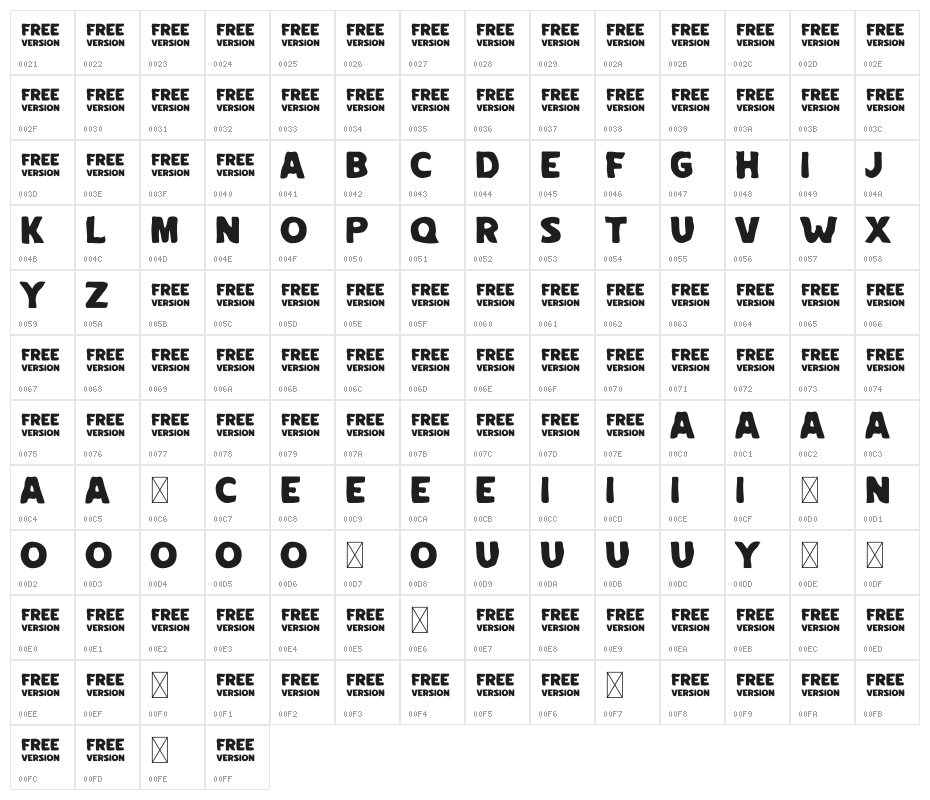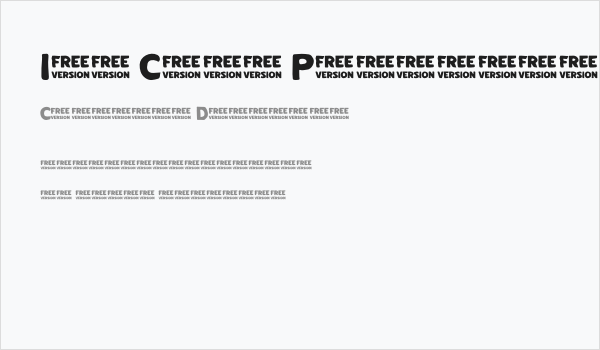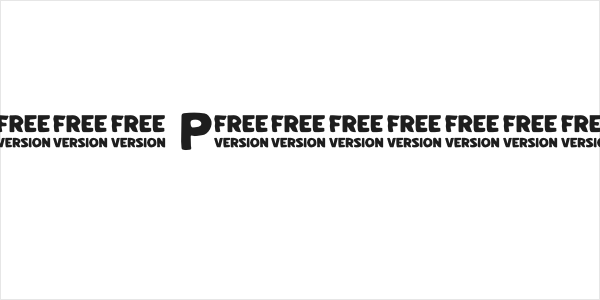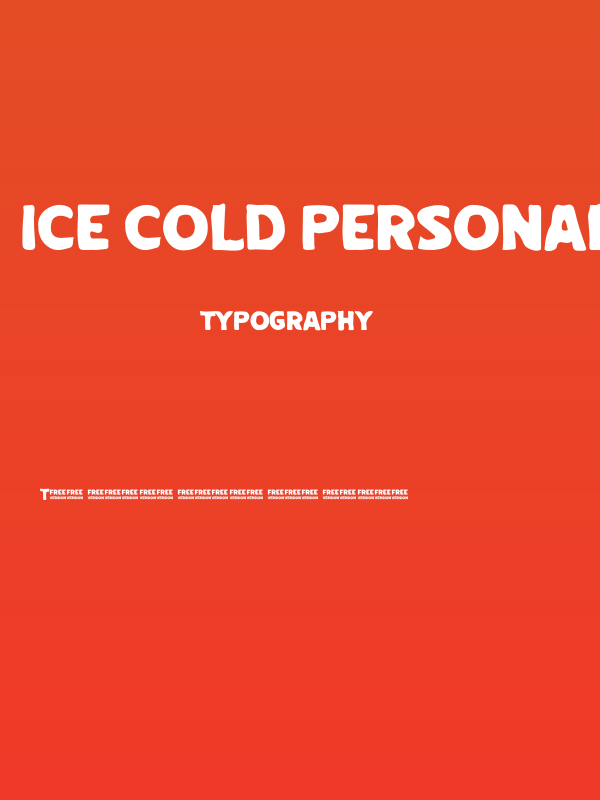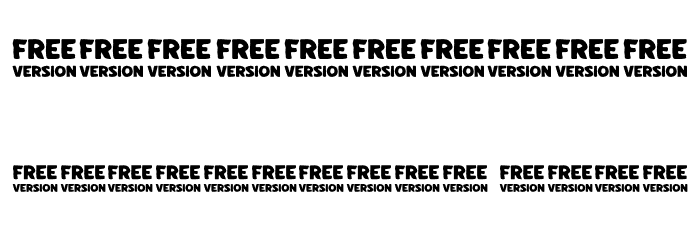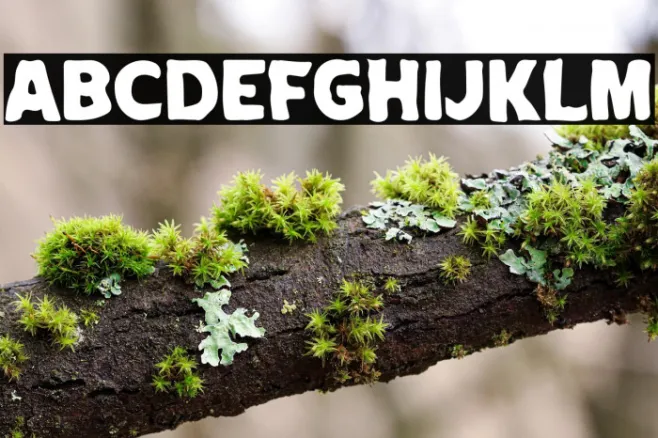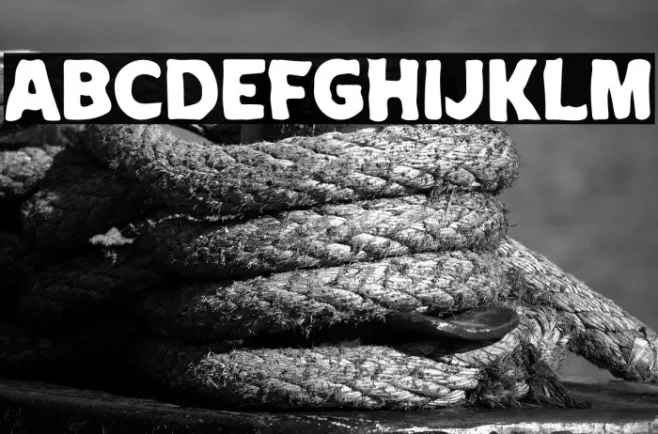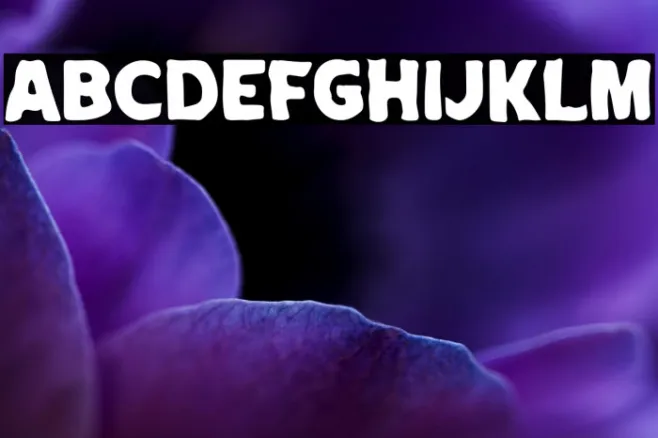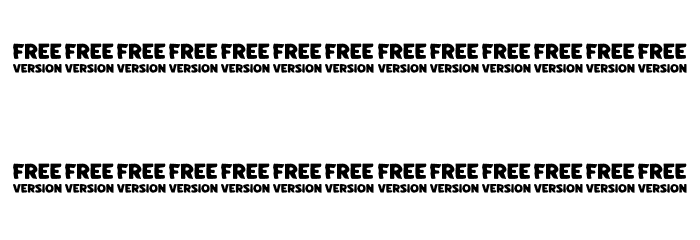
Ice Cold Personal Use Font
Ice Cold Personal Use Description
This font features bold, rounded characters with a playful and slightly irregular design, giving it a friendly and approachable appearance. The letters are thick and have a consistent weight throughout, creating a strong visual impact. The style is reminiscent of hand-drawn or cartoon-like fonts, making it suitable for informal and creative projects. The characters are closely spaced, enhancing the compact and cohesive look of the text. The overall design is modern and fun, with a touch of whimsy that adds character to any design.
| Overall Style | Playful, Modern |
| Proposed Projects | Ideal for children's books, comic strips, playful branding, and creative posters. |